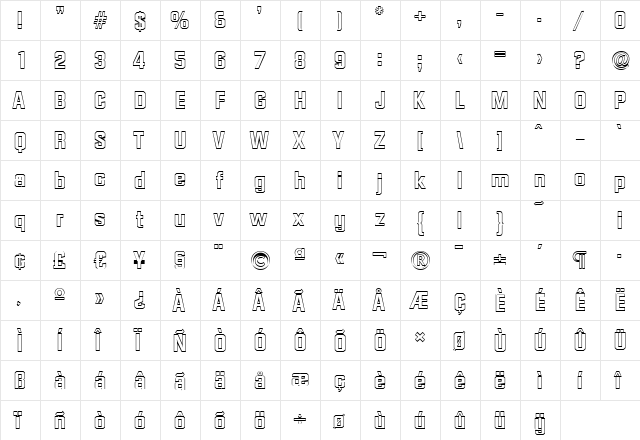
SeanBeckerOutline Bold
Design Context for SeanBeckerOutline Typeface
SeanBeckerOutline brings ornamental detail and strong personality to headlines and identities, where visual impact matters more than quiet functionality. Its bold stroke weight gives it real presence on the page.
Font Pairing: Pair with a clean neutral sans-serif for body copy to let SeanBeckerOutline's character lead without overwhelming the composition.
Pro Tip: Treat SeanBeckerOutline as the centrepiece of your typographic hierarchy. One strong heading set in a decorative face can carry an entire layout.